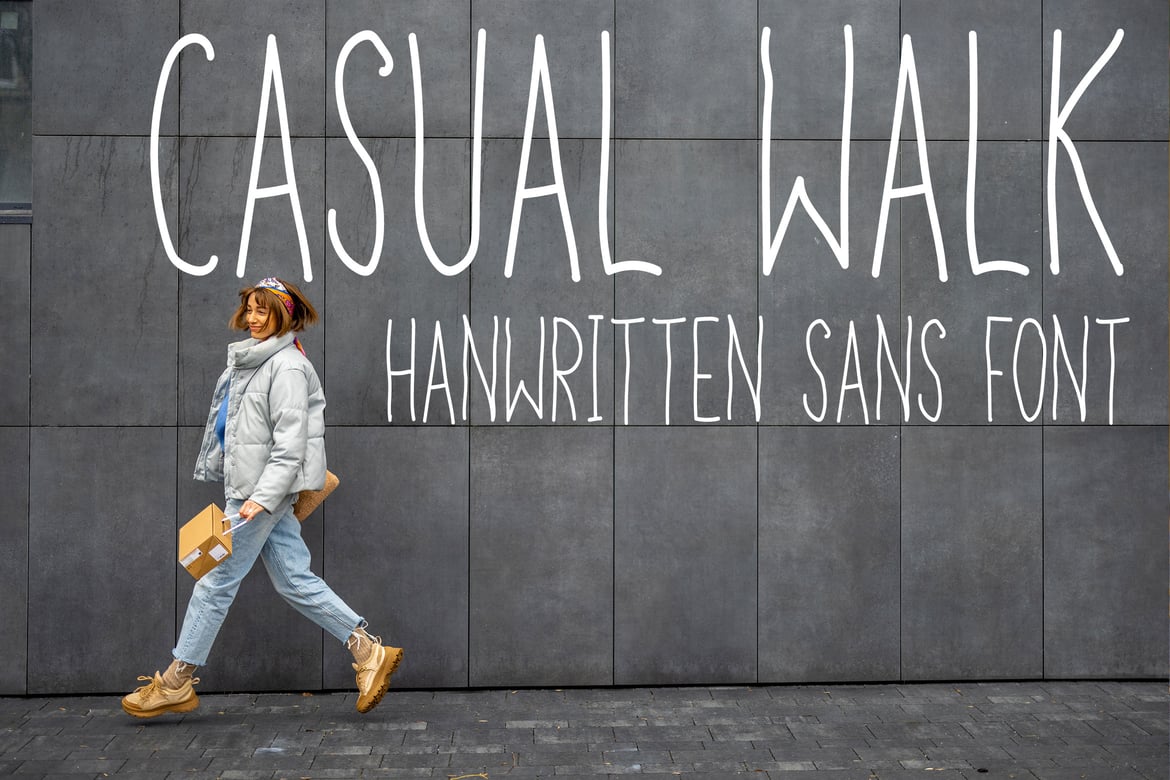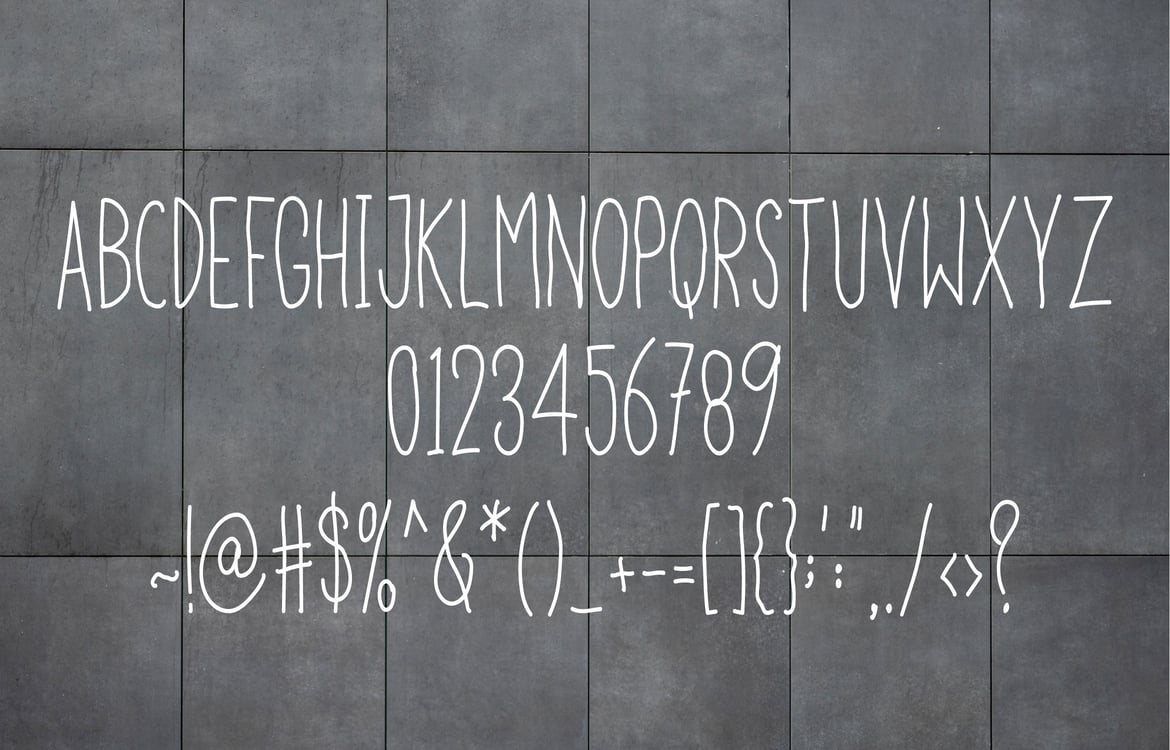
Casual Walk Font
Casual Walk is new Handwritten clean and simple All Caps font.
Included Uppercase, Lowercase (all Caps), Numbers, Punctuation’s/Symbols.